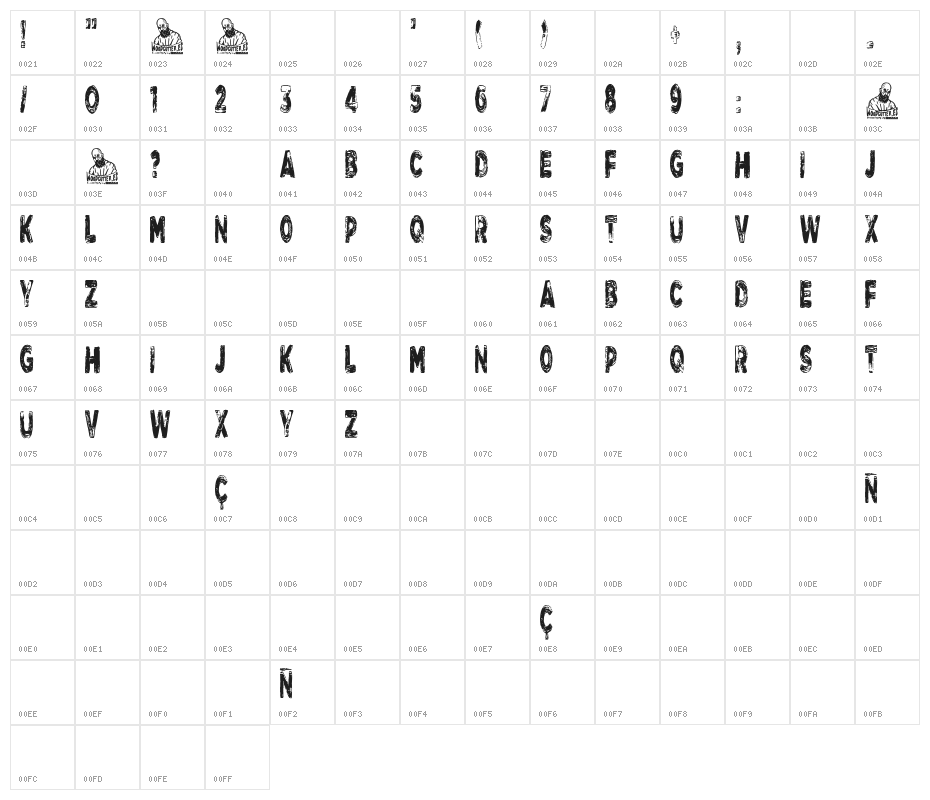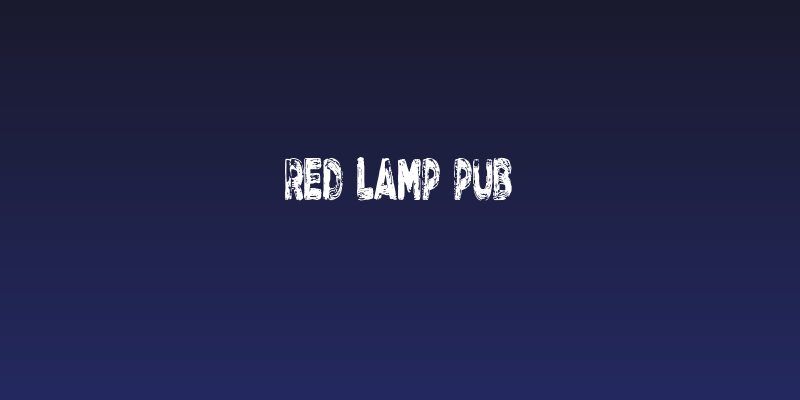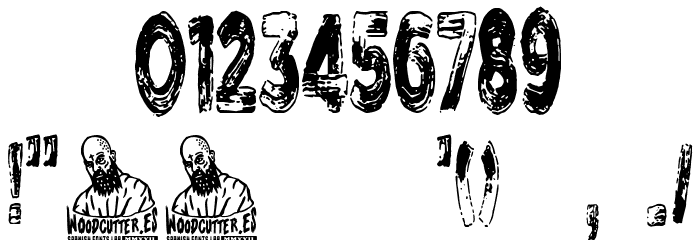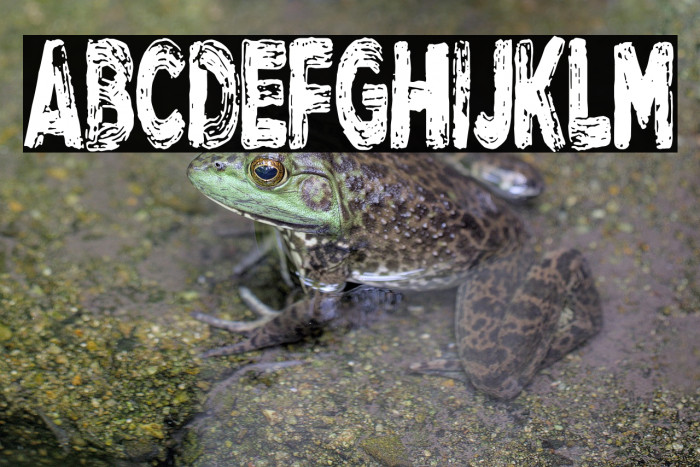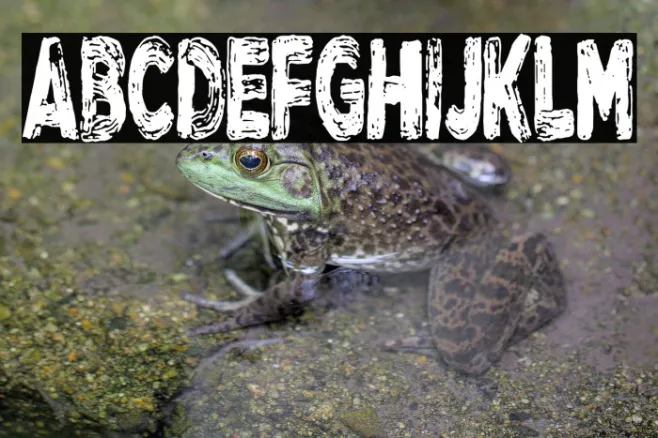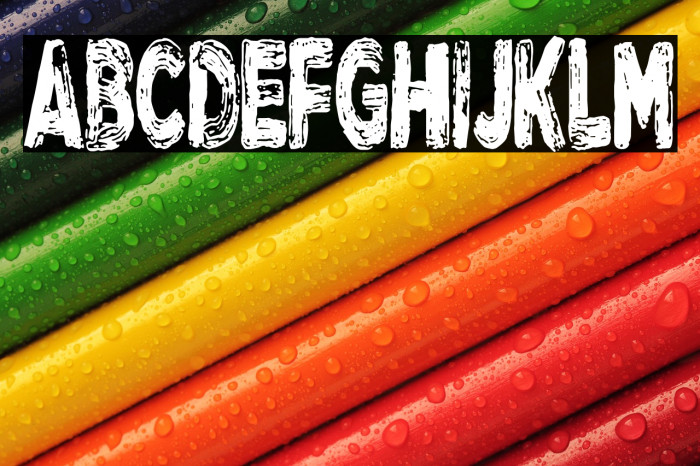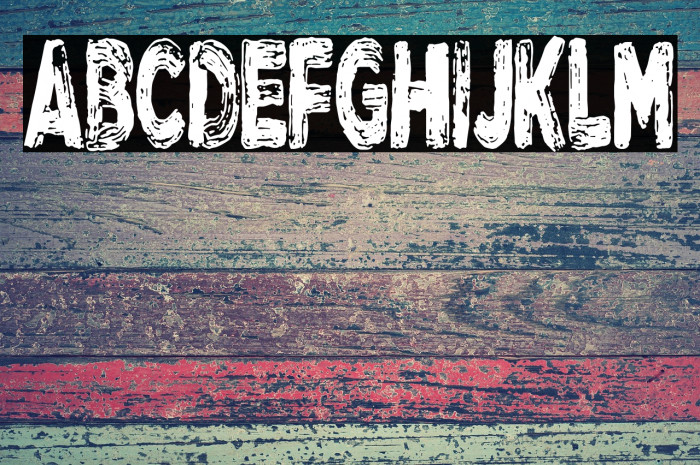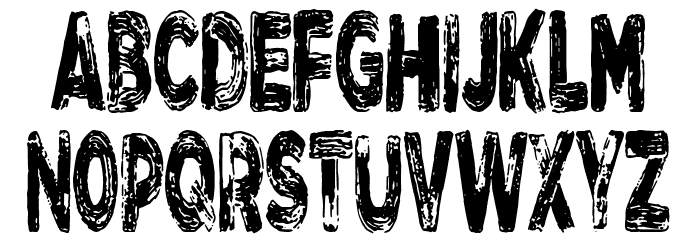
Red Lamp Pub Font
Red Lamp Pub Description
This font features a bold, distressed style with a rough, textured appearance that mimics the look of worn or weathered surfaces. The characters are uppercase and have a strong, impactful presence, making them suitable for attention-grabbing designs. The numbers and special characters maintain the same rugged aesthetic, ensuring consistency across all elements. The font's unique style gives it a vintage, grunge feel, perfect for projects that require a bold statement or an edgy look.
| Overall Style | Vintage, Grunge |
| Proposed Projects | Ideal for poster designs, album covers, branding for edgy or alternative products, and any project needing a strong, vintage aesthetic. |